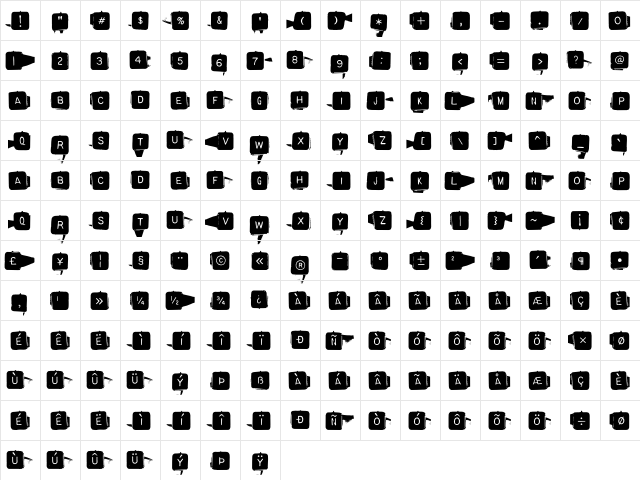
Backspacer Regular
Design Context for Backspacer Typeface
Backspacer is a composed and adaptable typeface that performs quietly and consistently across a wide range of design contexts.
Pro Tip: Pair Backspacer with a font of contrasting weight or personality to build a more expressive typographic hierarchy.